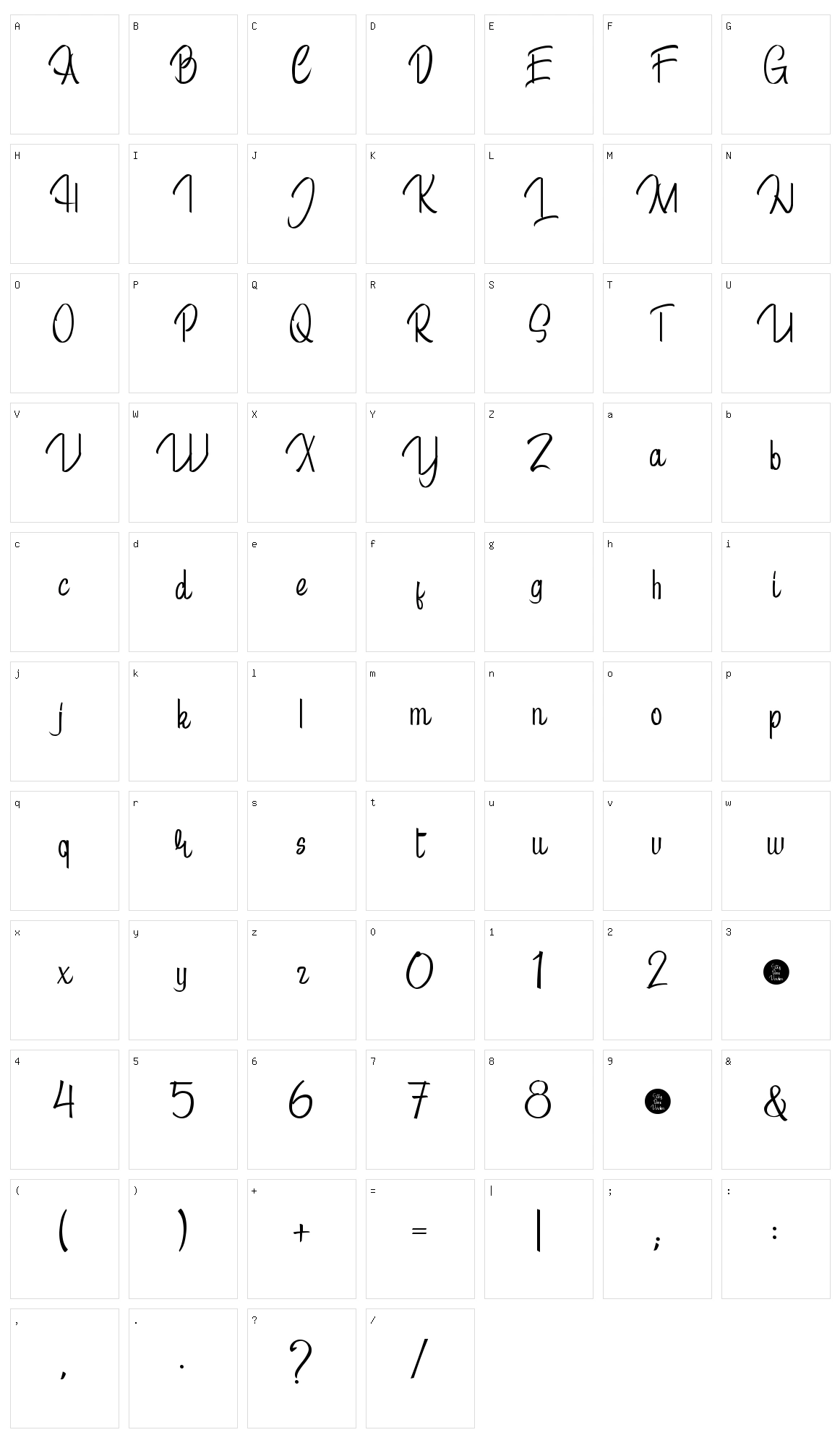
Sattay - a new modern & fresh script with a handwritten and script style make this font looks elegant, stylish and perfect for any awesome projects that need handwriting taste.
Sattay would perfect for photography, watermark, social media posts, advertisements, logos & branding, invitation, product designs, label, stationery, wedding designs, product packaging, special events or anything that need handwriting taste.
1. Uppercase and lowercase characters
2. Supports international languages
3. Ligature & stylistic alternates for several key lowercase characters are also available